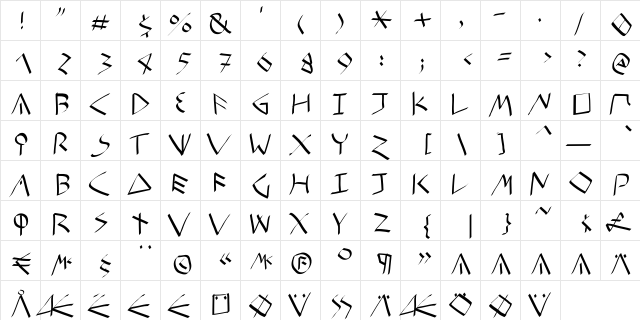
EtruskRough Regular
Design Context for EtruskRough Typeface
EtruskRough trades polish for personality, using distressed and eroded forms to bring grit and attitude to creative work.
A strong fit for alternative music projects, graffiti-adjacent design, and anything that deliberately resists polish.
Pro Tip: Use EtruskRough at larger sizes where the texture and irregularity of each letterform can be clearly seen — it loses its character at small sizes.